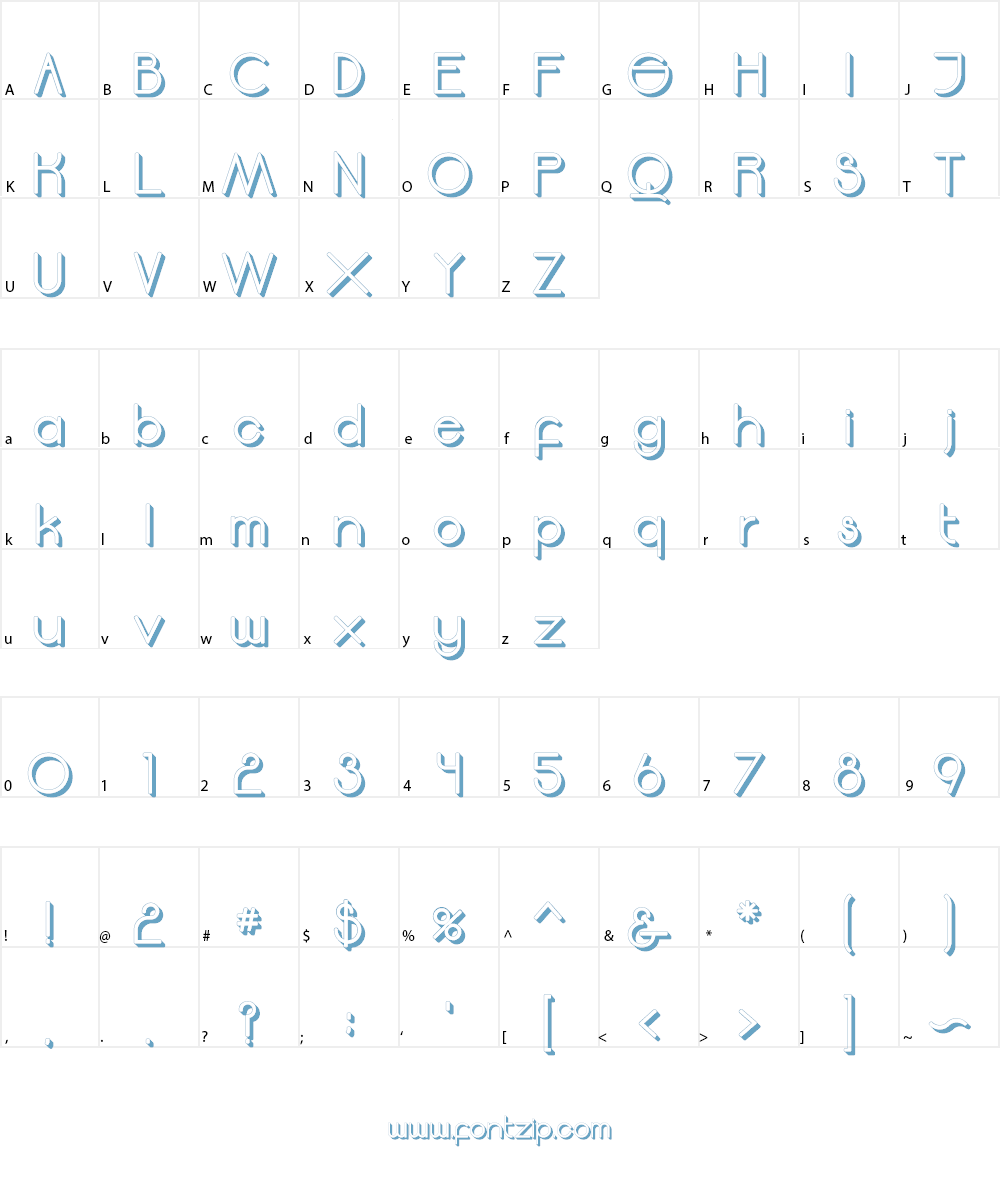
Moodyrock is a pretty gorgeous sans serif font that will Easily Become a modern typeface in your catalog. It features stunning clean lines, excellent shapes, and some style weigh to suit every project. elegant corner from some style can be used for logo company, header of business letter and also for branding your product.